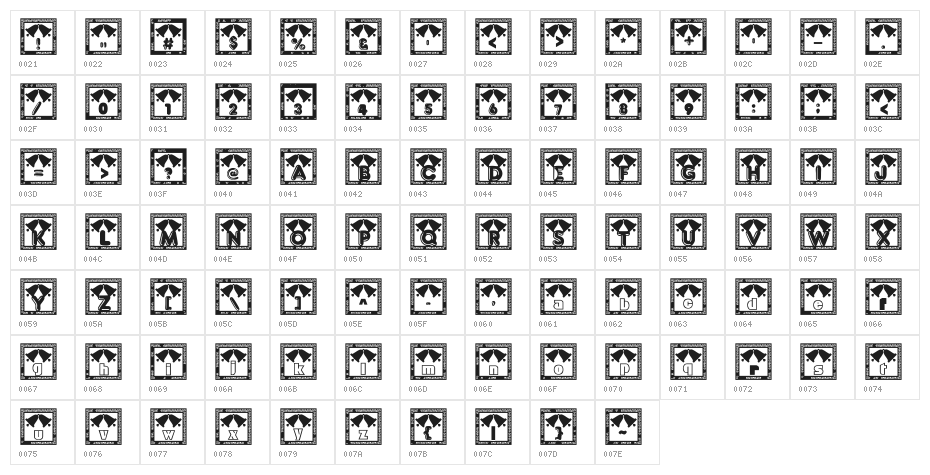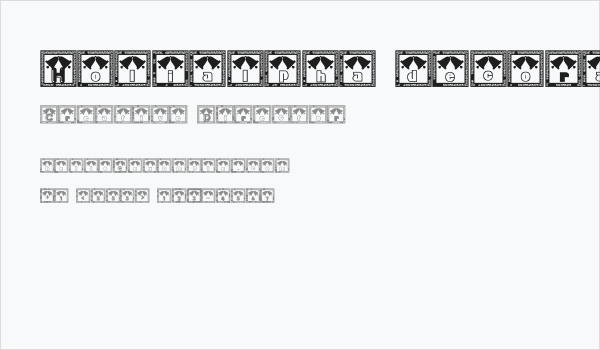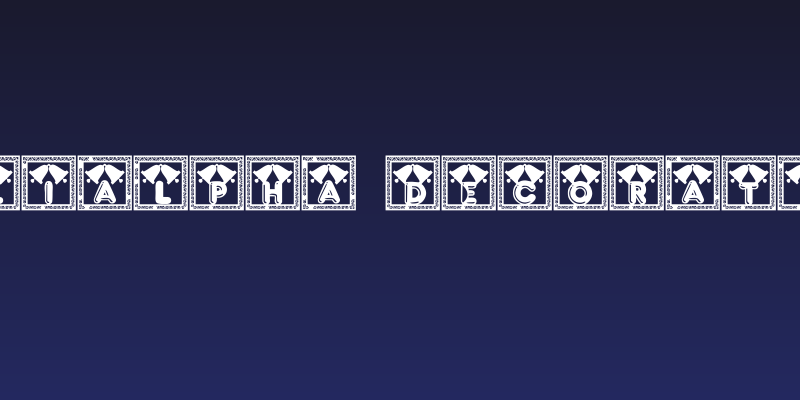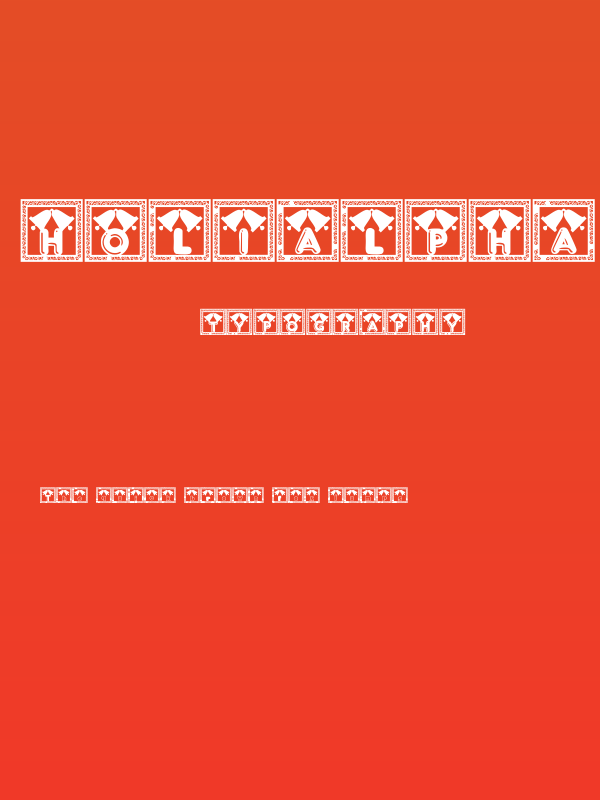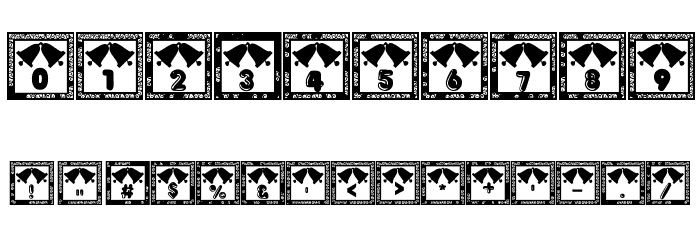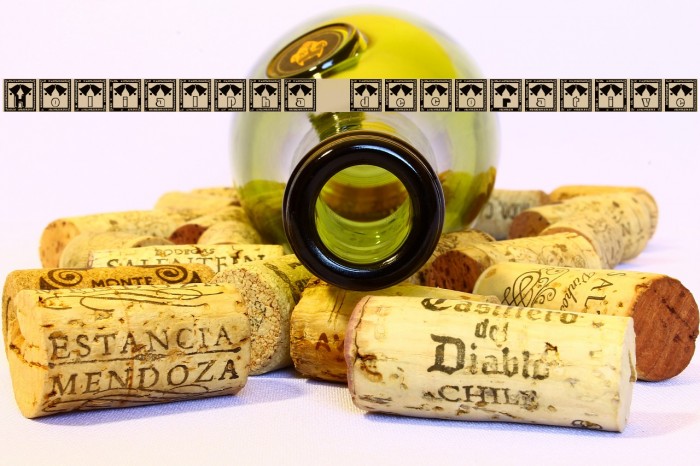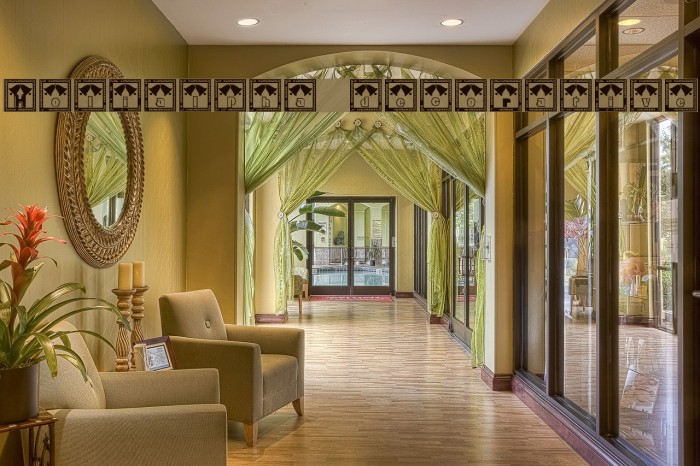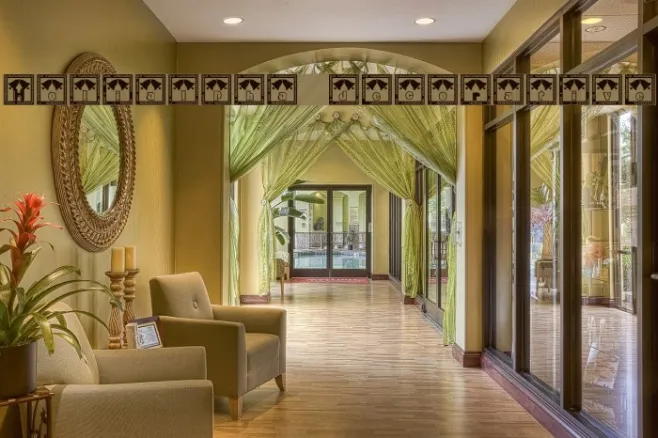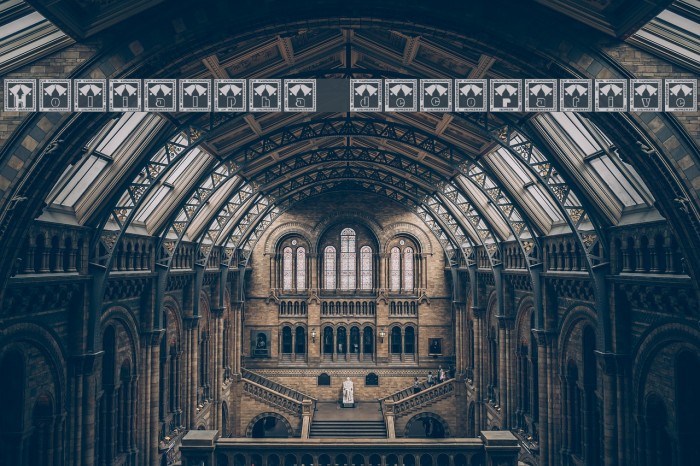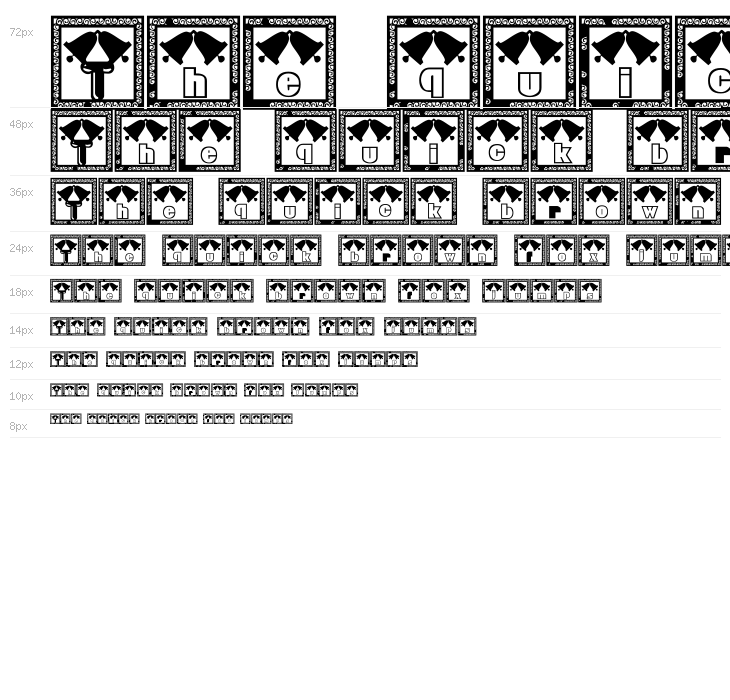
Holialpha decorative Font
Holialpha decorative Description
This decorative font features a unique and intricate design, with each character enclosed in a square frame adorned with geometric patterns. The letters are bold and stylized, incorporating a mix of sharp angles and curves that give them a distinct, artistic flair. The uppercase and lowercase letters maintain a consistent style, while the numbers and special characters are equally ornate, making this font ideal for creative and eye-catching designs. The overall aesthetic is both modern and playful, with a touch of elegance that makes it suitable for a variety of decorative purposes.
| Proposed Projects | Ideal for posters, invitations, branding, and any project requiring a decorative and eye-catching typeface. |